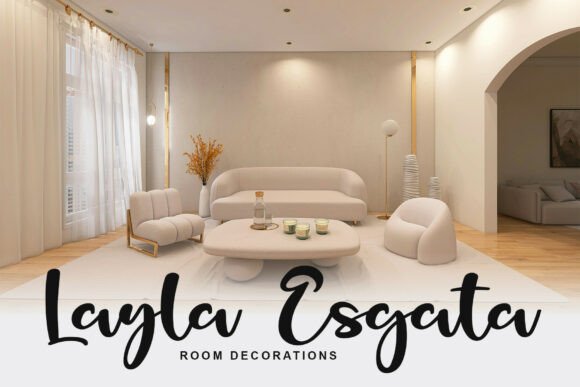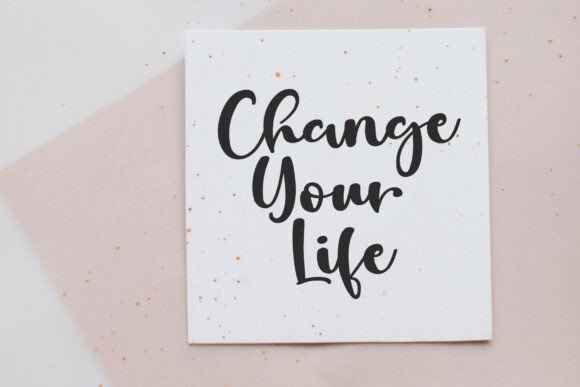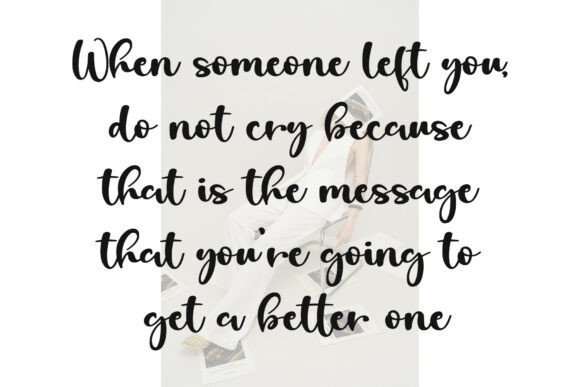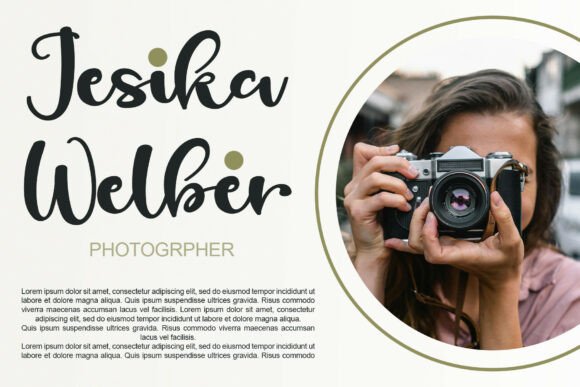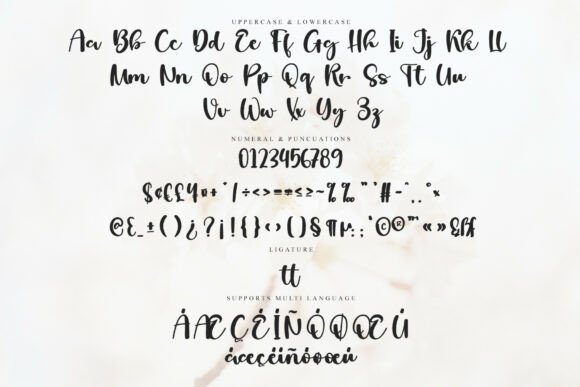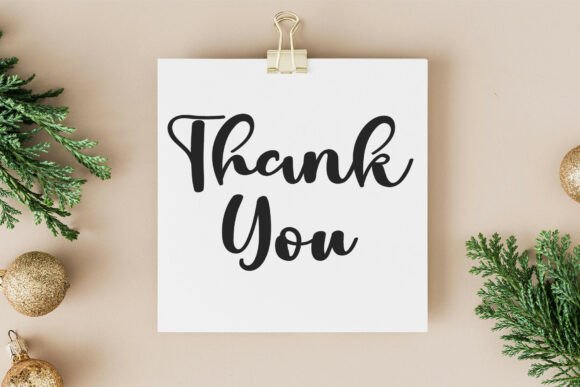
Biscuit Signature Font: Elevate Your Designs with Elegance and Authority
In the world of typography, a font can make or break the visual identity of a project. For designers and crafters seeking a script that exudes both elegance and confidence, Biscuit Signature is an exceptional choice. This elegant script handwriting font masterfully combines fluid strokes with a commanding presence, making it perfect for projects that demand a sophisticated yet authoritative aesthetic.
The Essence of Biscuit Signature
Biscuit Signature is more than just a font; it’s a statement piece. Its design balances grace and strength, offering a unique blend that sets it apart from other script fonts. The fluid strokes of Biscuit Signature provide a sense of movement and elegance, while its commanding presence ensures that it remains authoritative and impactful. This balance makes it an ideal choice for a variety of applications, from luxury branding to wedding invitations, and from high-end product packaging to editorial content.
One of the standout features of Biscuit Signature is its sophisticated and elegant look. The font’s fluidity gives it a handcrafted feel, as if each letter was written with precision and care. The strokes are smooth and connected, creating a harmonious flow that is pleasing to the eye. At the same time, the font maintains a level of boldness that prevents it from being too delicate or overpowered. This combination of elegance and strength is what makes Biscuit Signature truly unique.
Versatility in Use
Biscuit Signature’s versatility is one of its most appealing qualities. It can be used in a wide range of projects, including:
- Branding and Logo Design: For businesses looking to establish a sophisticated and professional image, Biscuit Signature can add a touch of elegance to logos and brand names.
- Wedding and Event Invitations: The font’s graceful and refined appearance makes it perfect for wedding invitations, save-the-date cards, and other event-related stationery.
- Packaging Design: For high-end products, Biscuit Signature can add a luxurious feel to packaging, helping brands to communicate quality and exclusivity.
- Editorial and Digital Content: In editorials, blogs, and digital platforms, Biscuit Signature can be used to add a stylish touch to headings, titles, and quotes.
Why Choose Biscuit Signature?
Choosing Biscuit Signature for your design projects comes with several advantages:
- Unique Aesthetic: Its blend of fluidity and command is hard to find in other fonts, making it a standout choice for designers looking for something distinctive.
- Legibility: Despite its elegant and cursive nature, Biscuit Signature maintains a high level of legibility, making it suitable for both headings and body text.
- Customization: The font can be easily customized to fit the specific needs of a project, from adjusting the weight to tweaking the spacing.
Tips for Using Biscuit Signature Effectively
To maximize the impact of Biscuit Signature in your designs, consider the following tips:
- Pair with Contrasting Fonts: Use Biscuit Signature alongside sans-serif or serif fonts to create contrast and visual interest.
- Adjust Weight and Size: Experiment with different weights and sizes to ensure that Biscuit Signature serves as a focal point or complements other design elements.
- Pay Attention to Spacing: Proper spacing is crucial for elegant fonts like Biscuit Signature. Ensure that letters and words are evenly spaced to maintain readability and aesthetic appeal.
Biscuit Signature is a versatile and impactful font that can elevate a wide range of design projects. Its unique combination of elegance and authority makes it an excellent choice for designers and crafters looking to add a touch of sophistication to their work. By understanding its characteristics and experimenting with its use, designers can unlock the full potential of Biscuit Signature and create visually stunning pieces that leave a lasting impression.